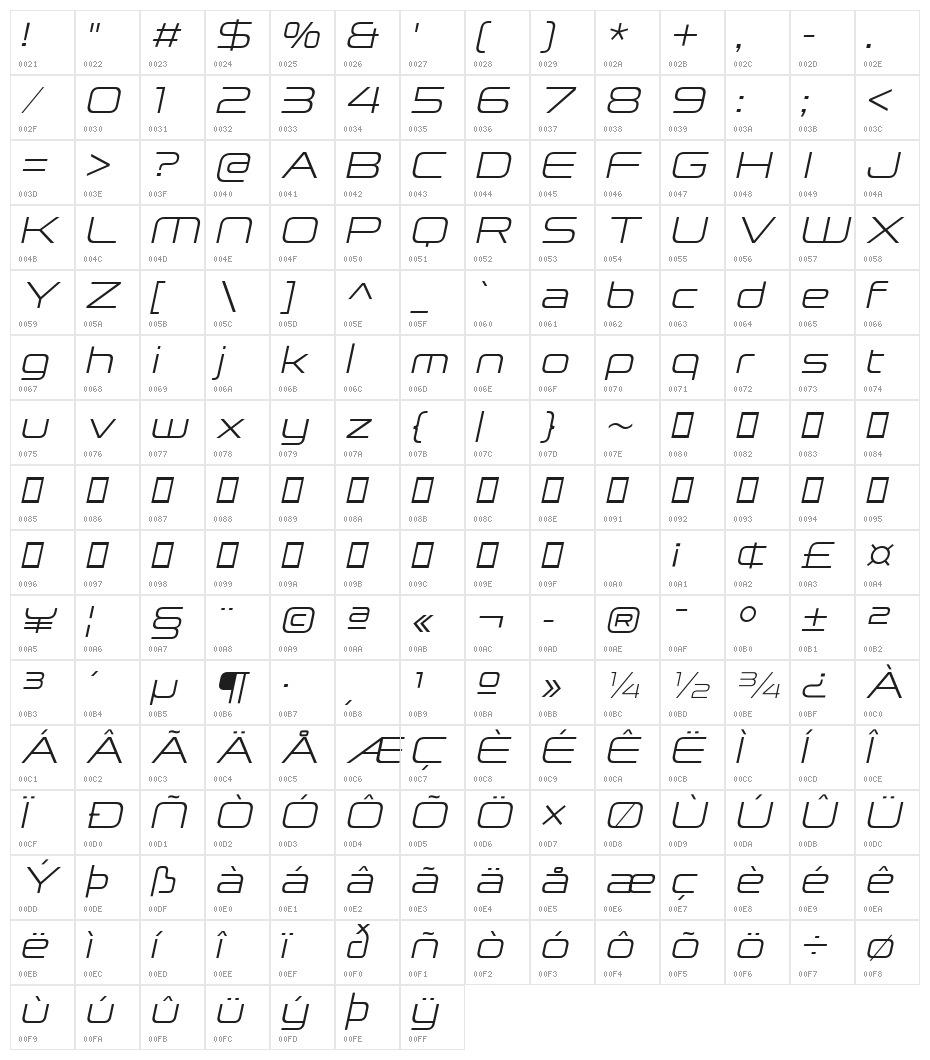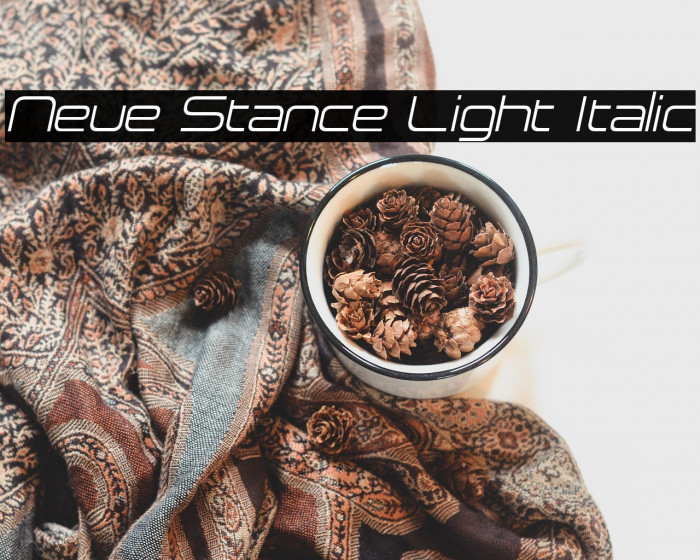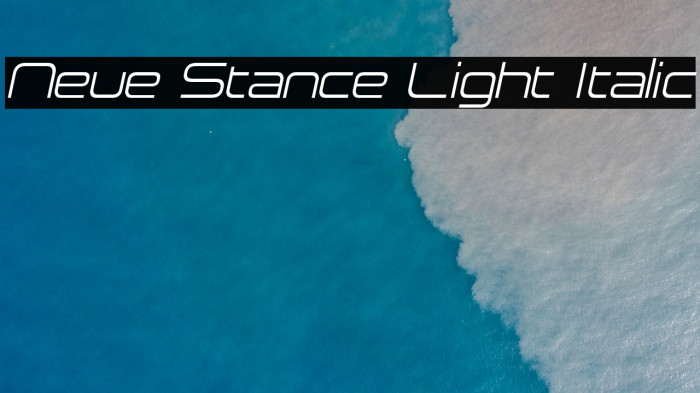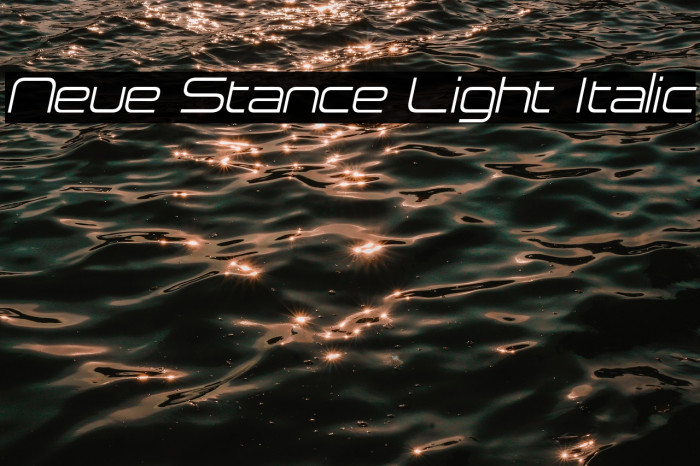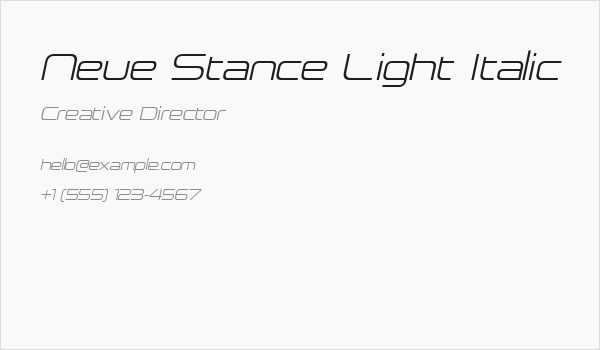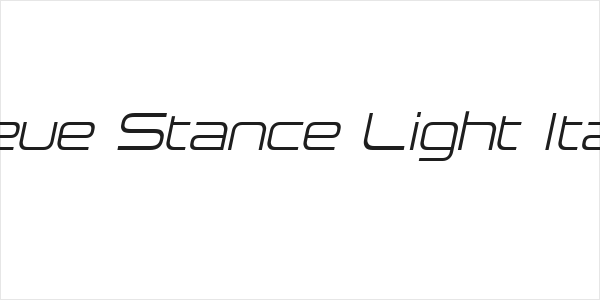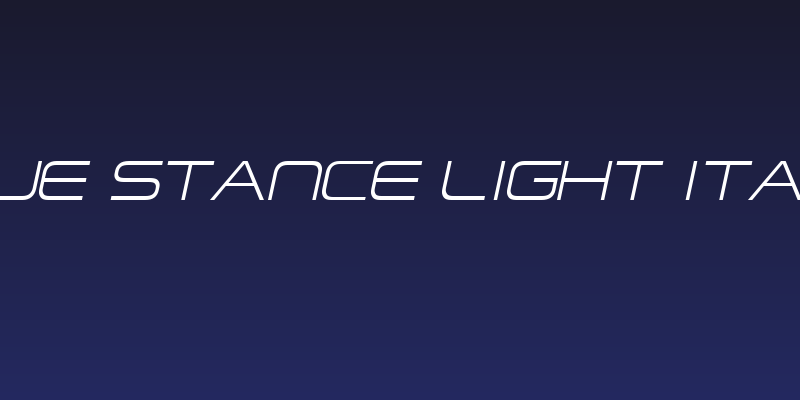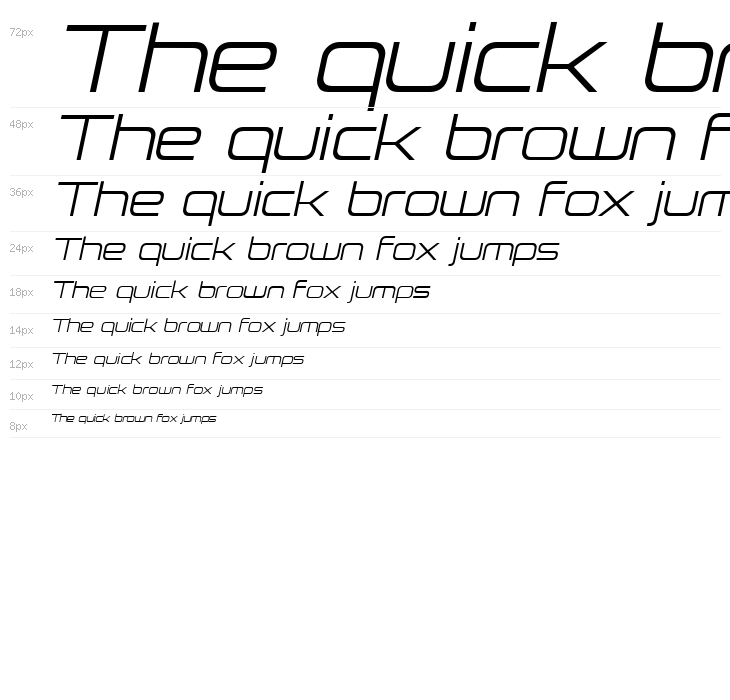
Neue Stance Light Italic Font
Neue Stance Light Italic Description
This font features a sleek, modern design with a light weight and italic style. The characters are elongated and slightly condensed, giving them a streamlined appearance. The strokes are consistent and smooth, with a low contrast between thick and thin lines. The overall look is futuristic and minimalistic, making it suitable for contemporary design projects. The spacing between characters is normal, allowing for readability while maintaining a stylish aesthetic.